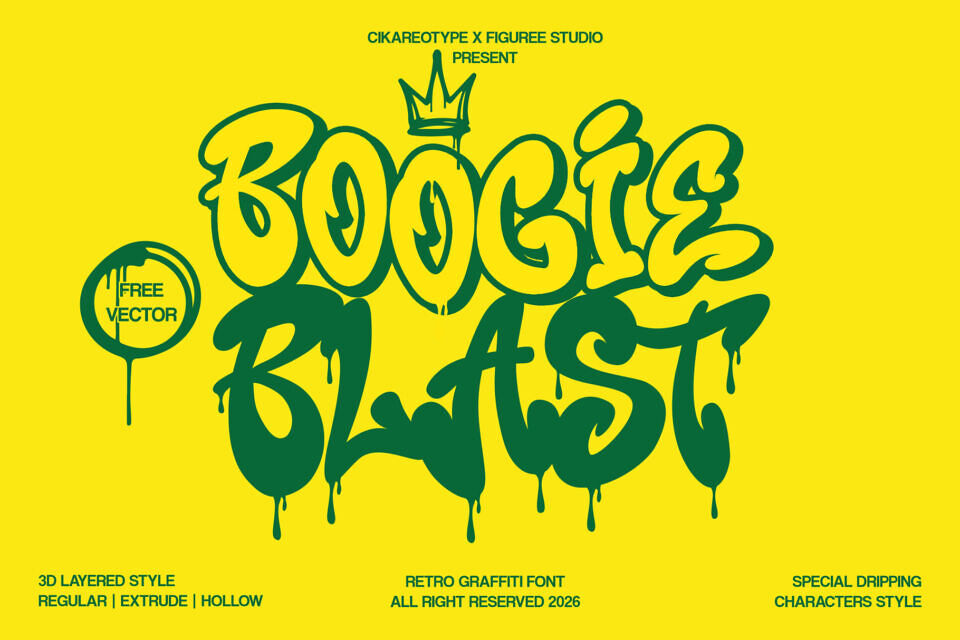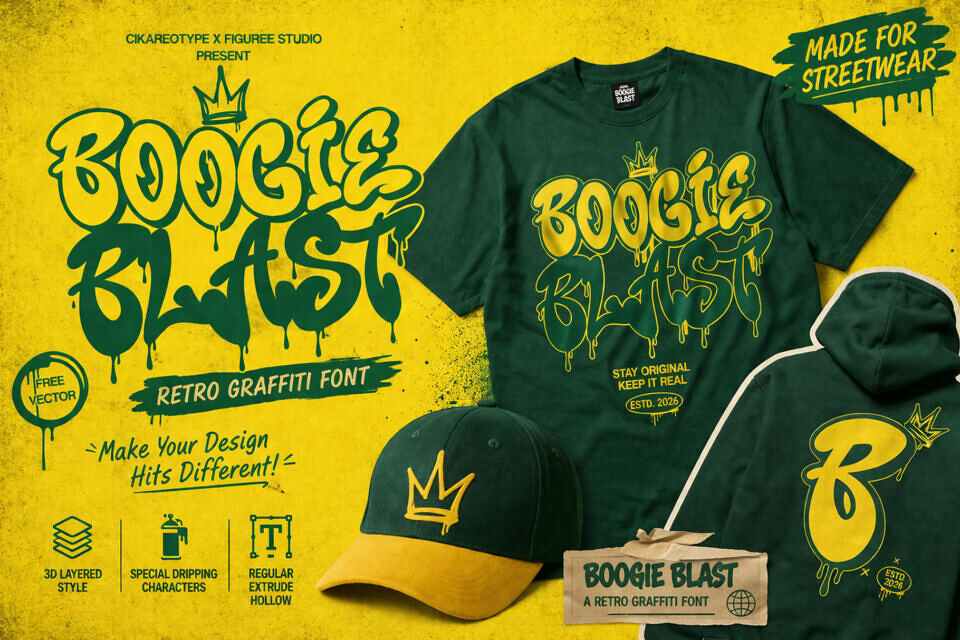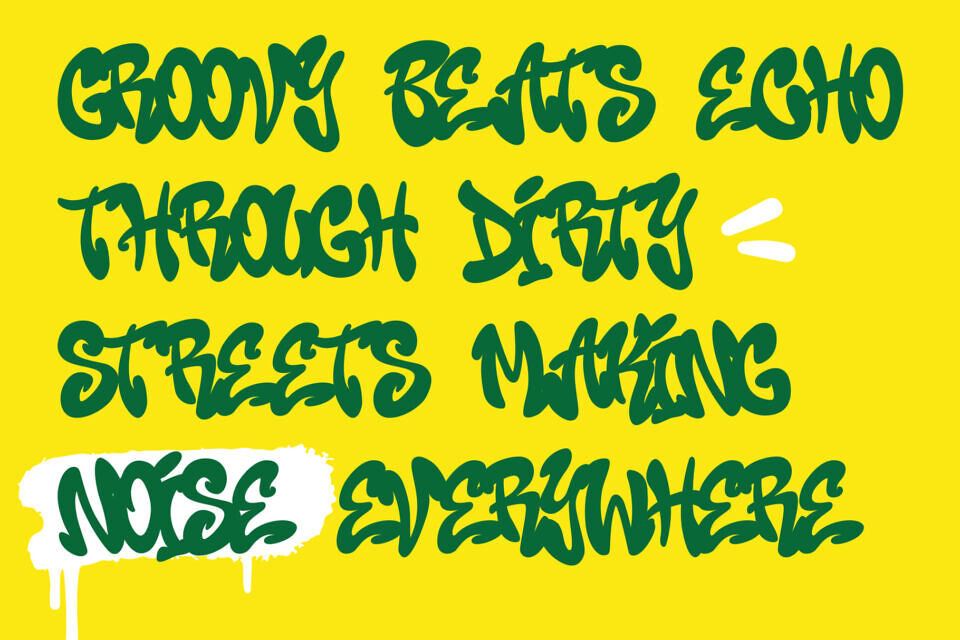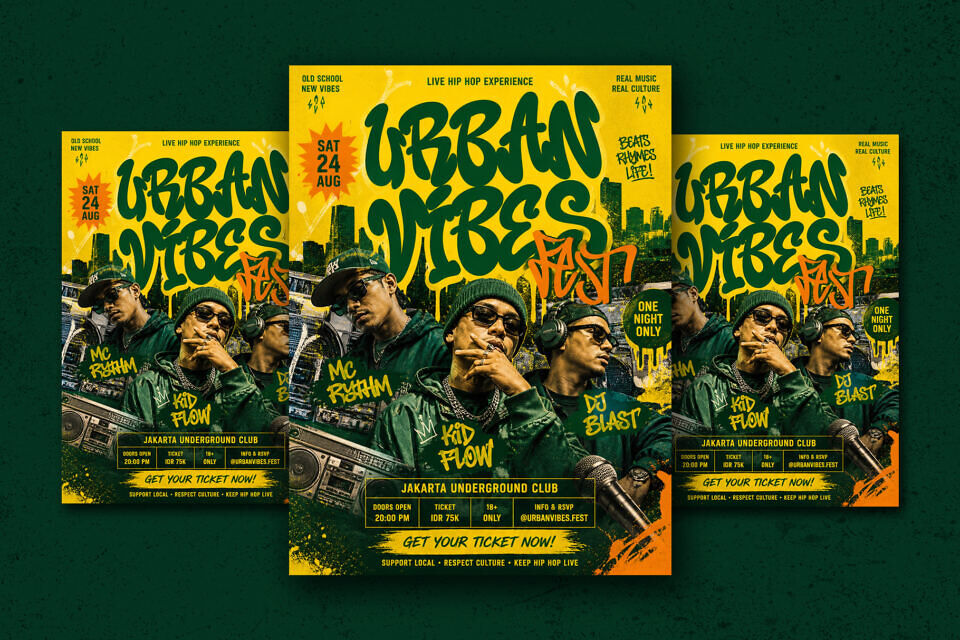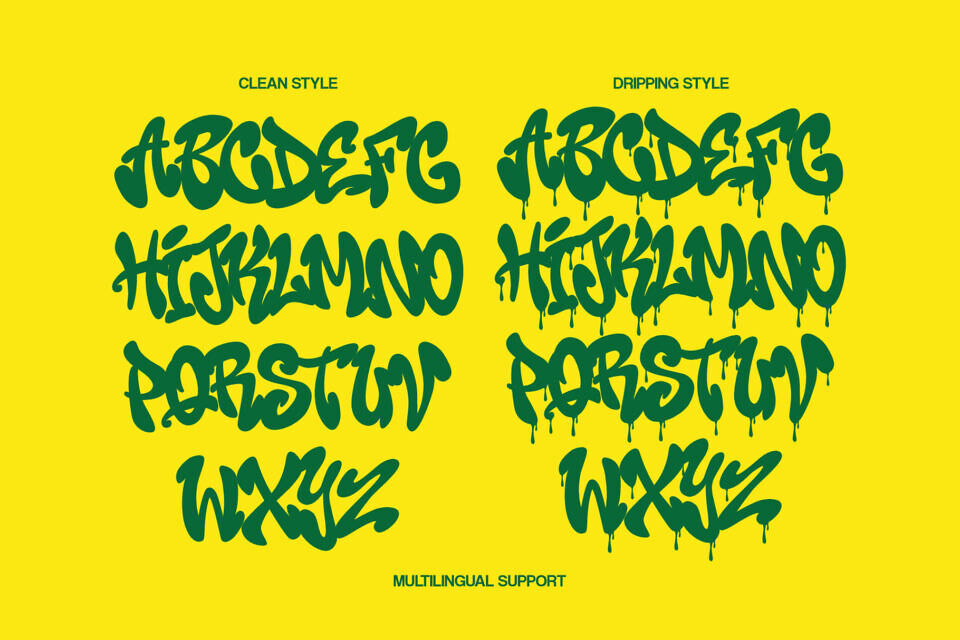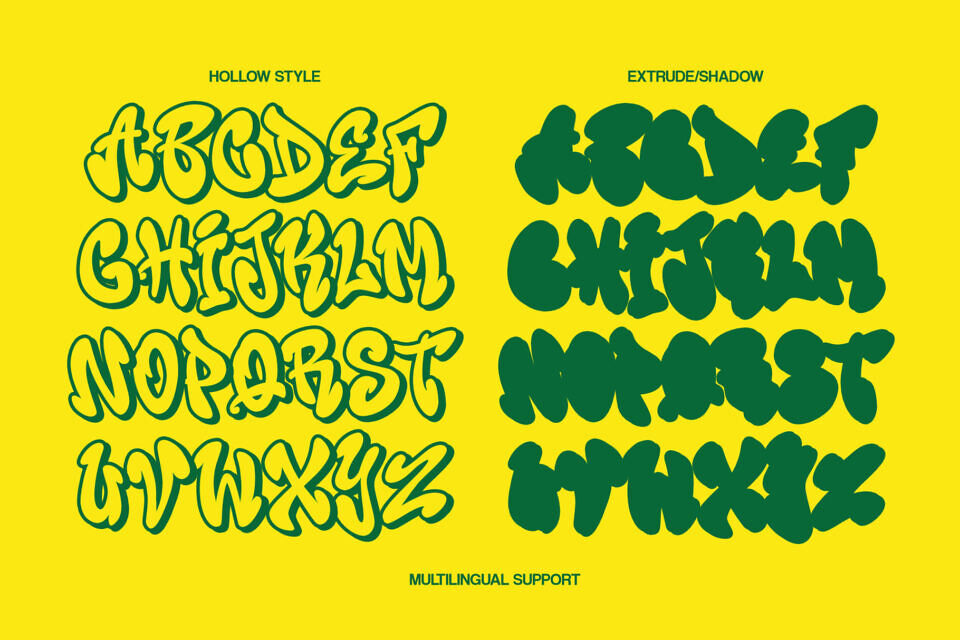
Turn up the volume on your designs with Boogie Blast, a vibrant retro graffiti font. This typeface celebrates the expressive energy of 90s street art, featuring bouncy, 3D layered letterforms and authentic “dripping” character styles.
Its heavy visual weight and rhythmic, bubbly silhouette make it an extraordinary choice for streetwear branding, urban music posters, skate-culture graphics, and standout social media content. Boogie Blast offers incredible versatility with its Regular, Extrude, and Hollow styles, ensuring your message carries a legendary and unyielding personality in every “throw-up” or piece.